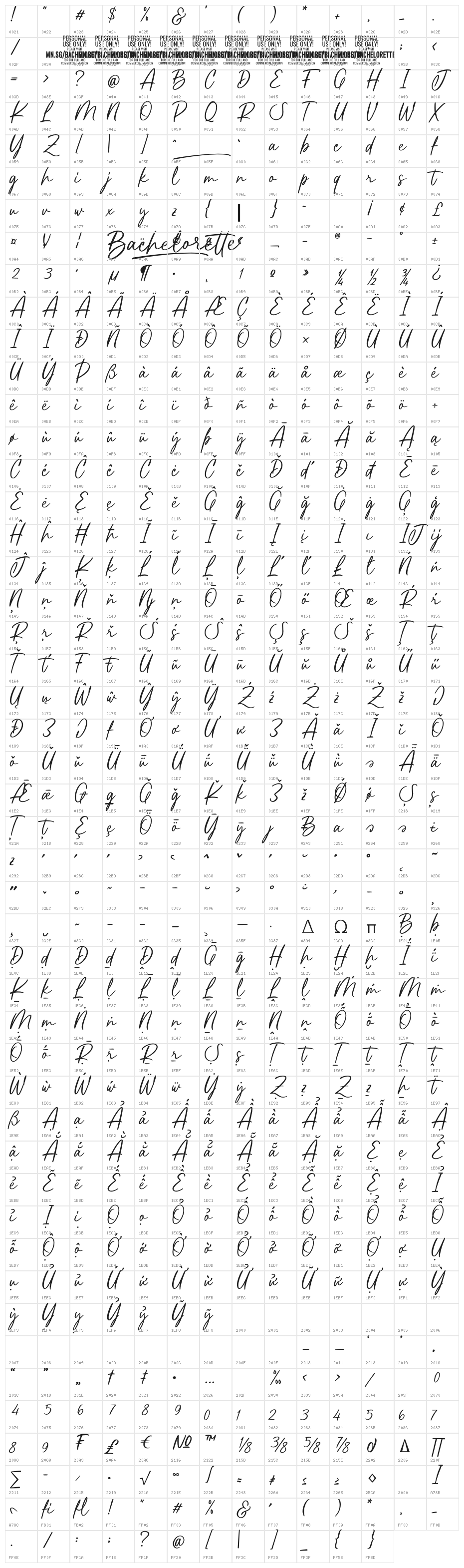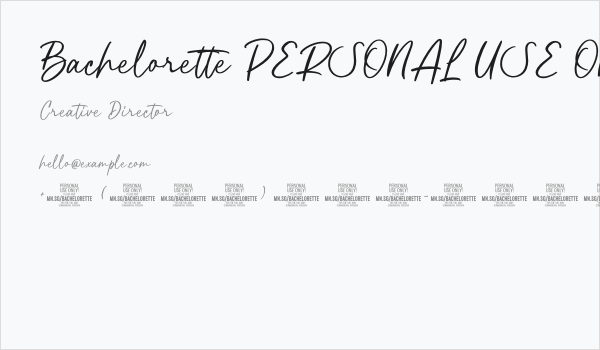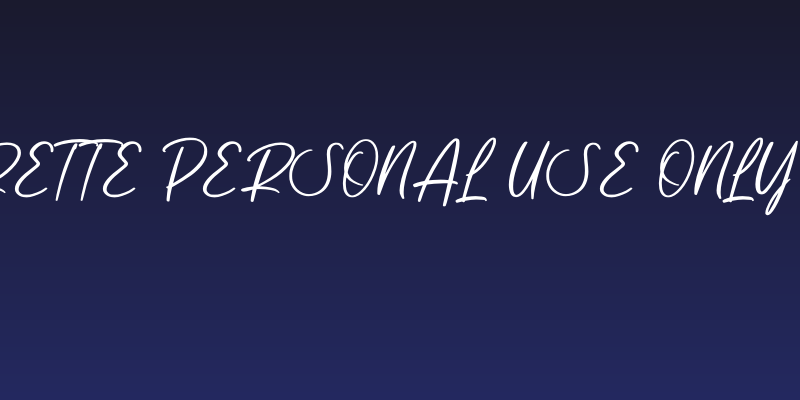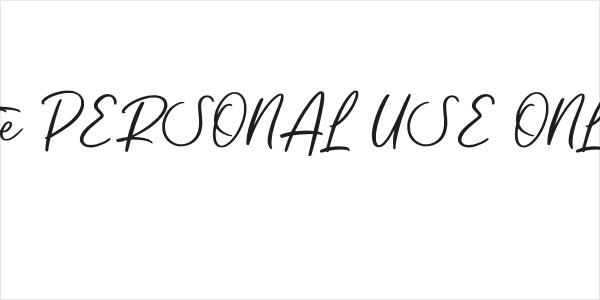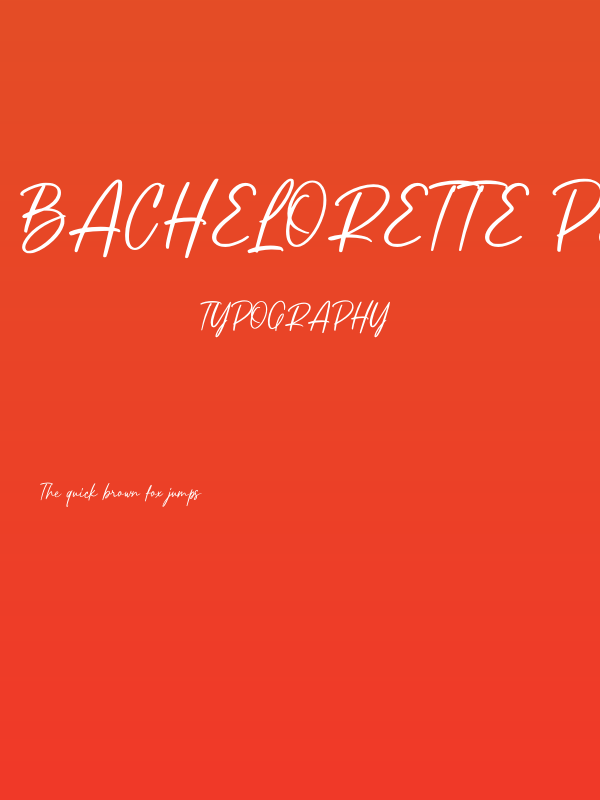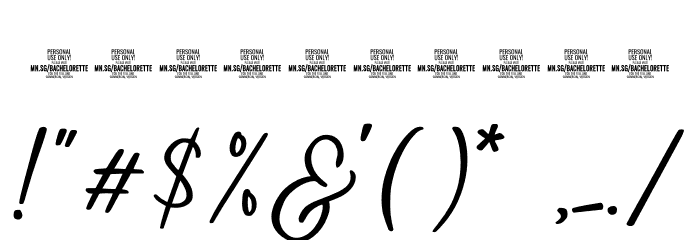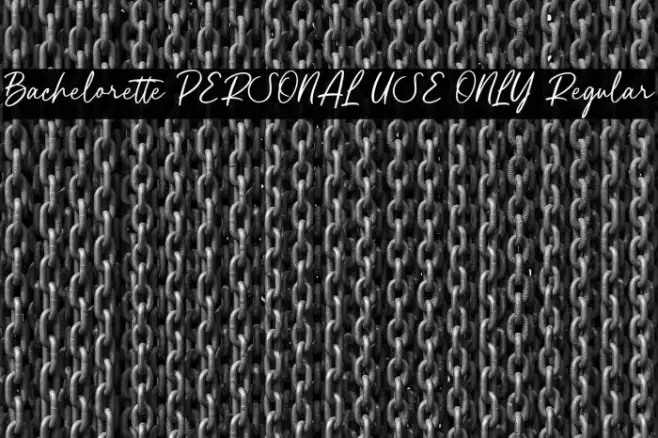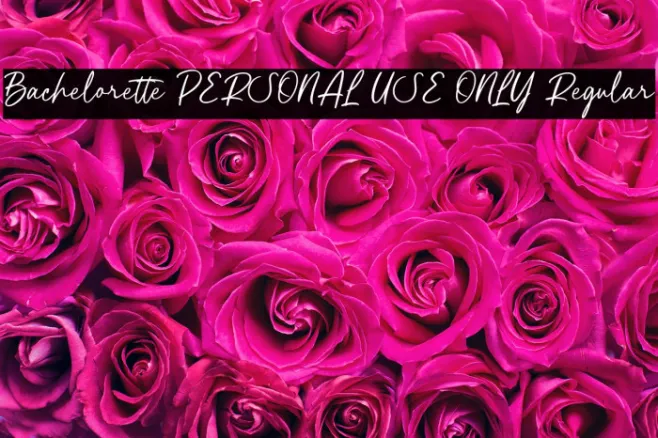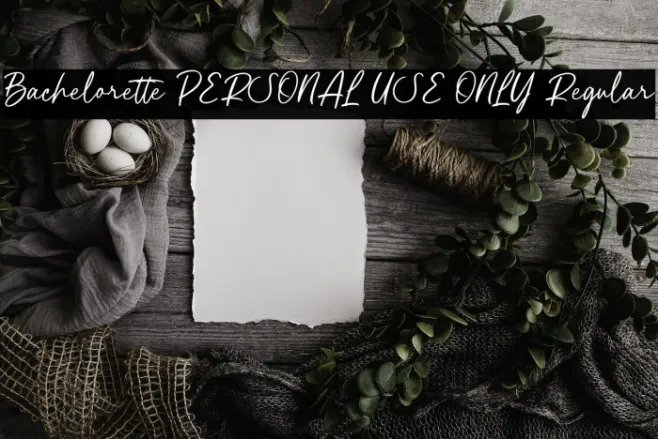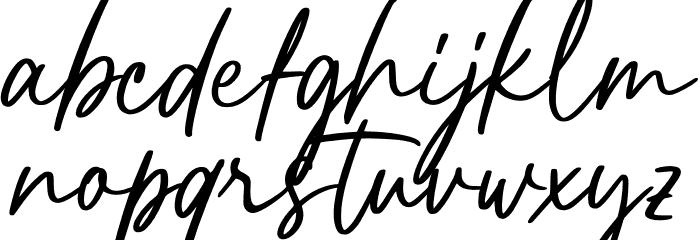
Bachelorette PERSONAL USE ONLY Regular Font
Bachelorette PERSONAL USE ONLY Regular Description
This font features a lively and expressive script style, characterized by its flowing, cursive letterforms. The uppercase letters are bold and dynamic, with a slight slant that adds a sense of movement and elegance. The lowercase letters maintain a consistent flow, creating a harmonious and cohesive look. The font includes a full set of numerals and a variety of special characters, enhancing its versatility. The strokes are smooth and fluid, with moderate contrast that emphasizes the handwritten quality. This font is ideal for projects that require a personal and artistic touch.
| Use Case | Logos, Invitations, Artistic projects |
| Proposed Projects | Ideal for wedding invitations, greeting cards, personal branding, and artistic projects. |